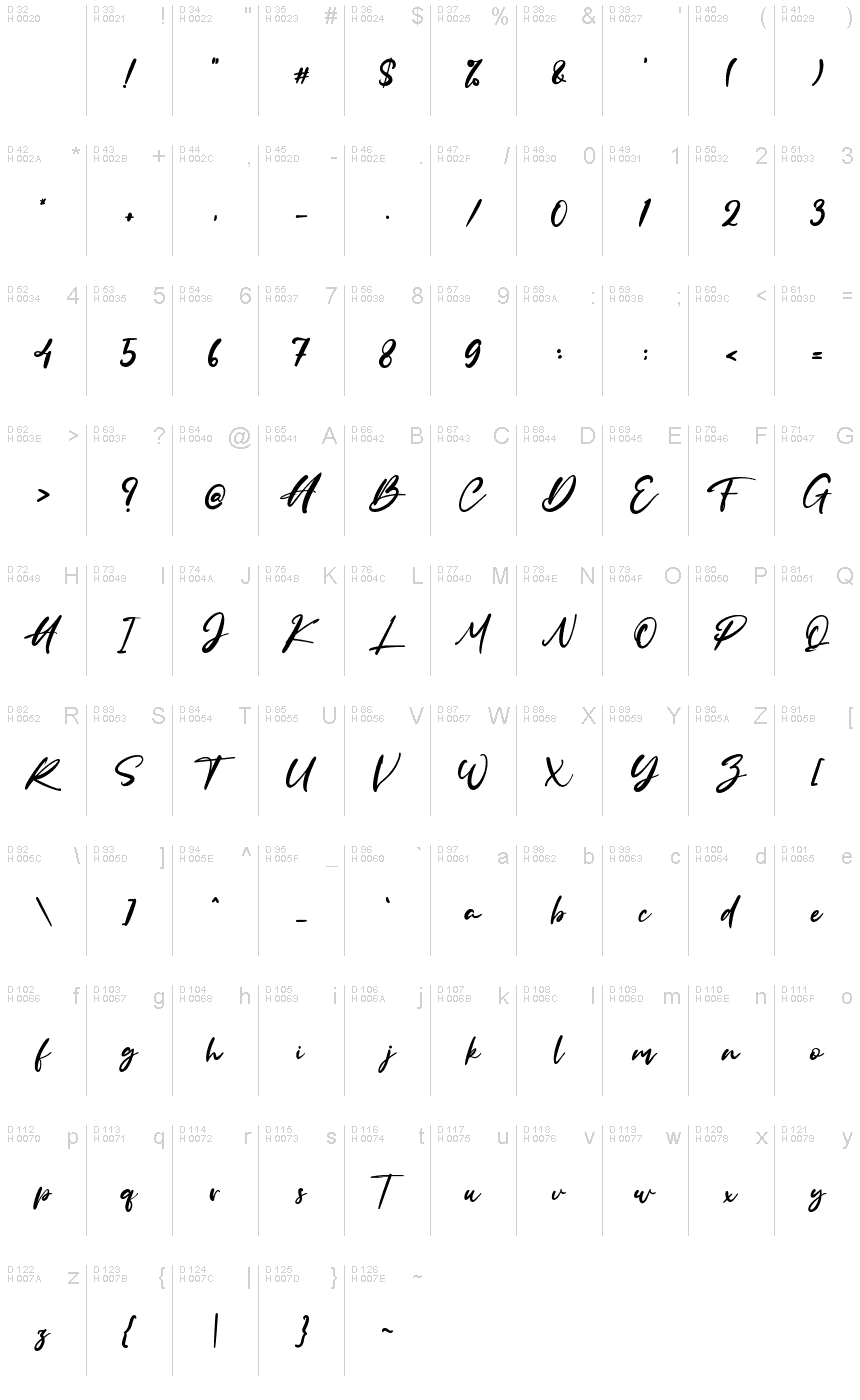
The California
The California, designed by Kong Font, is a luxurious and signature handwritten font. With its semi-light weight, this font exudes elegance and sophistication.
Its flowing curves and smooth lines make it perfect for projects that require a touch of high-end sophistication, such as luxury branding, high-fashion magazine spreads, or upscale event invitations. The California adds a personal and refined feel to any design, making it suitable for wedding stationery, elegant logos, or premium product packaging.
Let this font elevate your next project with its distinctive charm.